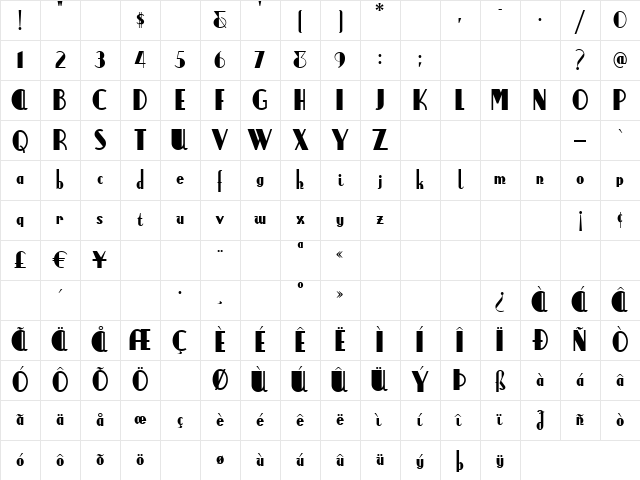
AnchorSteamNF Regular Free Font
AnchorSteamNF Regular
Foundry: Nick's Fonts
Designer: Nick Curtis
Design Context for AnchorSteamNF
AnchorSteamNF is a composed and adaptable typeface that performs quietly and consistently across a wide range of design contexts.